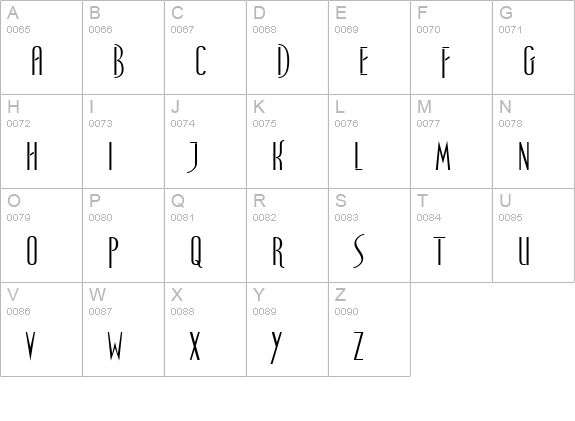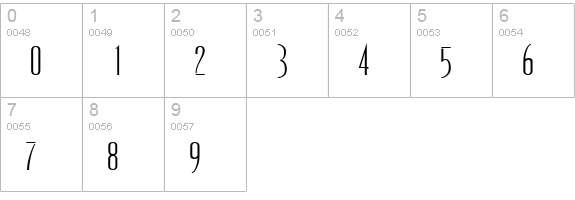
Spellbound Regular Font Details
Spellbound Regular is the standard, neutral variant in the Spellbound typeface family \xE2\x80\x94 well suited to general body text, paragraphs, and standard typographic work.
Spellbound Regular is a captivating and enchanting font that will effortlessly add an air of magic to any project. Its clean and elegant lines, combined with a touch of whimsy, make it the perfect choice for a wide range of creative endeavors. Whether you're designing a spellbinding logo, crafting a mystical invitation, or creating captivating headlines, Spellbound Regular will bring your vision to life with its unique charm. This font's versatility is truly spellbinding. Its timeless appeal ensures that it can be used for both modern and vintage designs, making it a go-to choice for designers of all styles. The carefully crafted letterforms are easy to read, ensuring that your message is conveyed with clarity and impact. And the best part? Spellbound Regular is available for free download at FontsMarket.com. That's right, this magical font can be yours without spending a single penny. Simply visit FontsMarket.com and start adding a touch of enchantment to your designs today. So, whether you're a professional designer or a passionate hobbyist, Spellbound Regular is the font that will cast a spell on your audience. Download it for free at FontsMarket.com and let the magic begin.